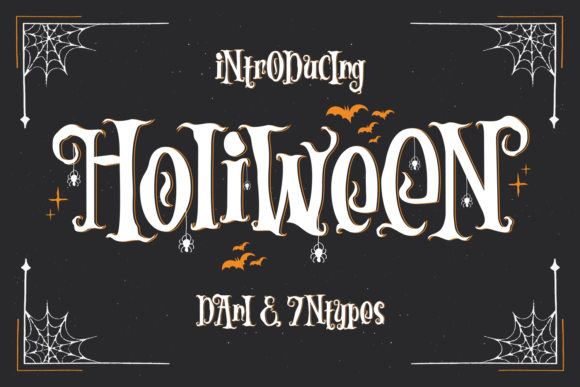
Introducing Holiween Font, the ultimate choice for those seeking the best font for display purposes. Created by the talented Dani from 7NTypes, this font is all set to unleash a captivating and spooky vibe to your creative ideas.
Holiween Font is not your ordinary typeface; it exudes an astonishing boldness that commands attention. With its unique design, it will undoubtedly make your projects pop and stand out from the crowd. Whether you're working on a Halloween-themed design, a horror movie poster, or a haunted house flyer, this font is a must-have to create an unforgettable impact.
This display font offers endless possibilities to elevate your designs to new heights. Its carefully crafted letters are both mesmerizing and captivating, leaving a lasting impression on anyone who lays eyes on them. Imagine the thrill of your audience as they are spellbound by the eerie yet enchanting allure of Holiween Font.
The versatility of Holiween Font knows no bounds. It can effortlessly transform any ordinary project into an extraordinary masterpiece. From invitations to greeting cards, from banners to social media posts, this font will infuse a touch of mystique and excitement into every piece of artwork you create.
Not only does Holiween Font possess stunning aesthetics, but it also boasts exceptional readability. Each letter is meticulously designed to ensure clarity and legibility, even at smaller sizes. This makes it perfect for both digital and print media, allowing your message to shine through flawlessly.
But Holiween Font is more than just a display font; it is an emotion in itself. It evokes a sense of thrill, intrigue, and excitement, leaving a lasting impression on your audience. Whether you want to instill fear or create a sense of mystery, this font has got you covered.